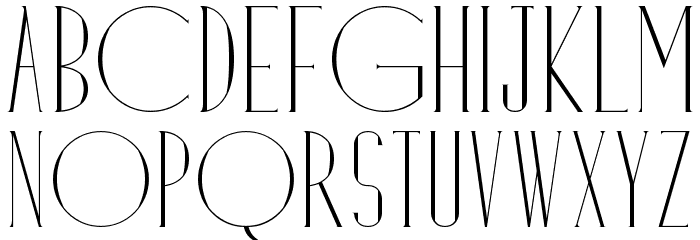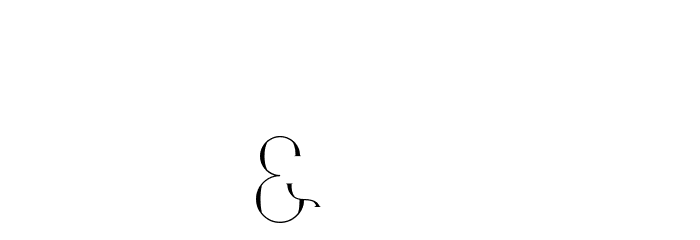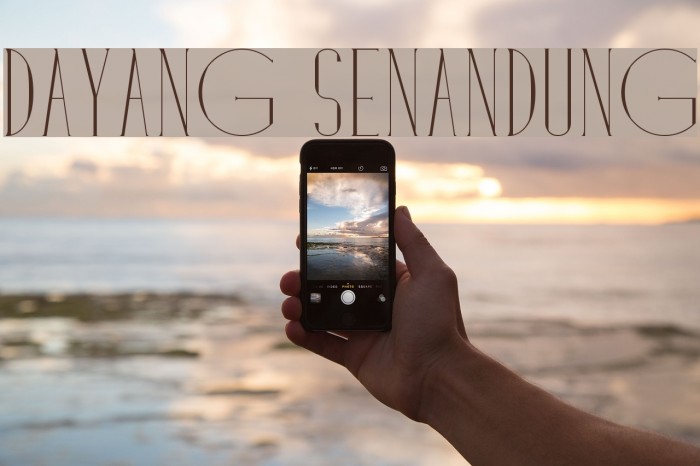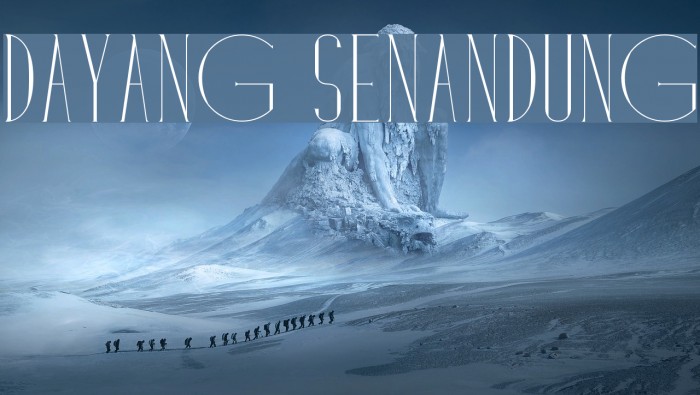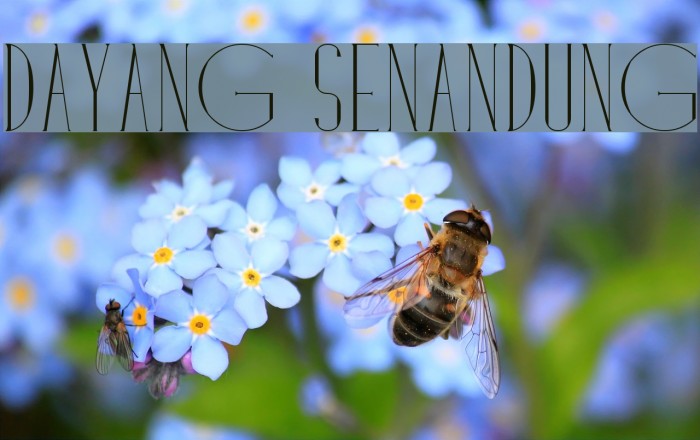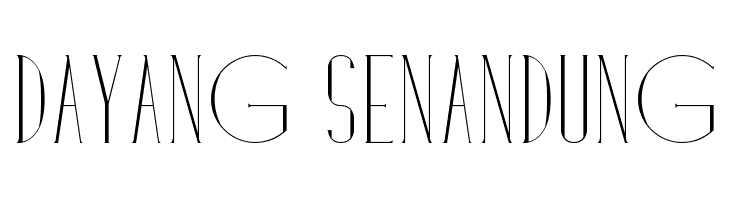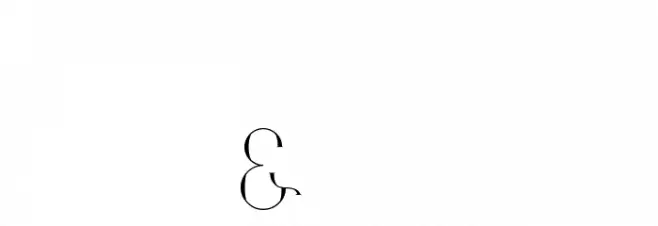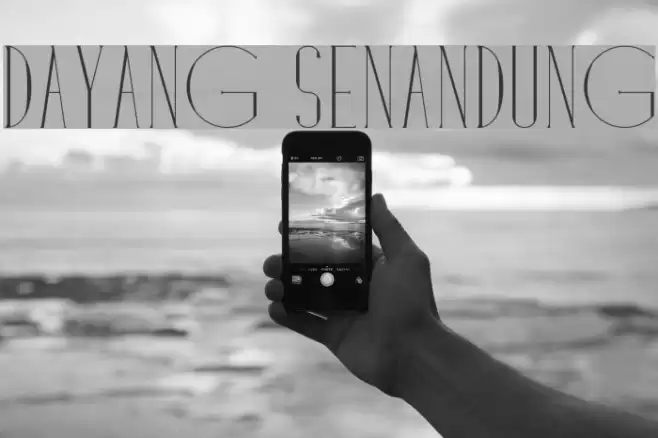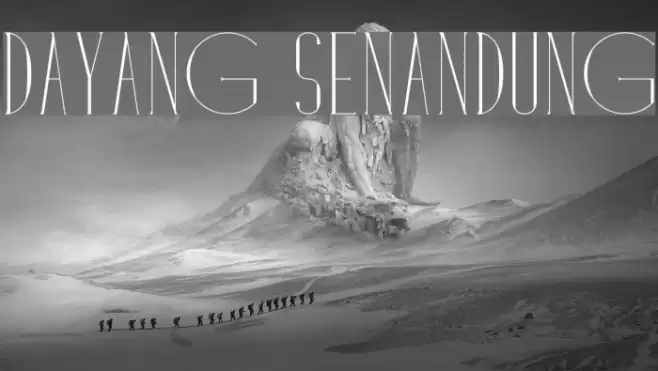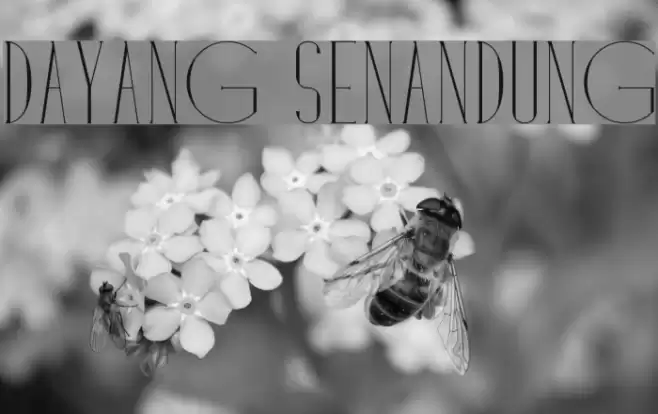
Dayang Senandung Font
This font features an elegant and sophisticated design with tall, narrow letters that exude a sense of modernity and style. The characters are characterized by their thin, elongated forms and high contrast between thick and thin strokes, giving them a refined and delicate appearance. The uppercase letters are particularly striking, with sharp angles and clean lines that create a sense of precision and clarity. The ampersand symbol is uniquely stylized, adding a touch of flair to the overall design. This font is perfect for projects that require a touch of elegance and sophistication, such as high-end branding, fashion magazines, and luxury product packaging.
An elegant, high-contrast font with tall, narrow letters and a modern style.
- Proposed Projects: Ideal for luxury branding, fashion editorials, and elegant invitations.